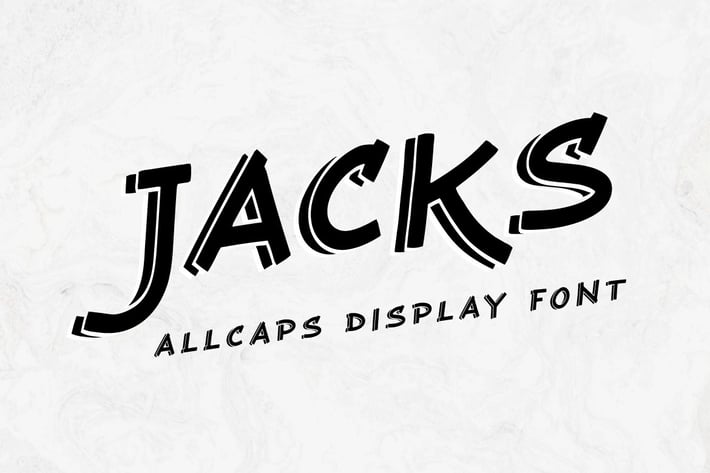
Jacks - Vintage Minimalist Display Font
Hello! JACKS is a simple handwritten font.
Jacks can be used in any works such as flyer, book title, advertisement, social media content, logo and many more.